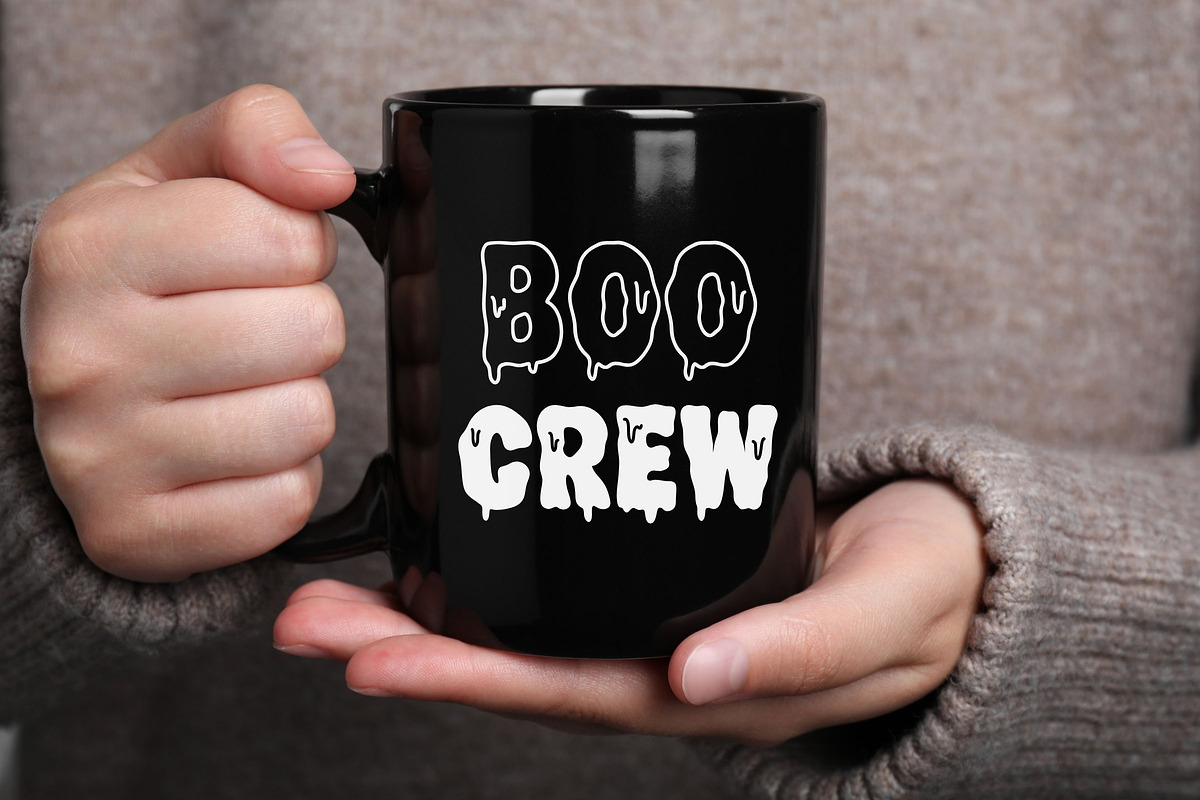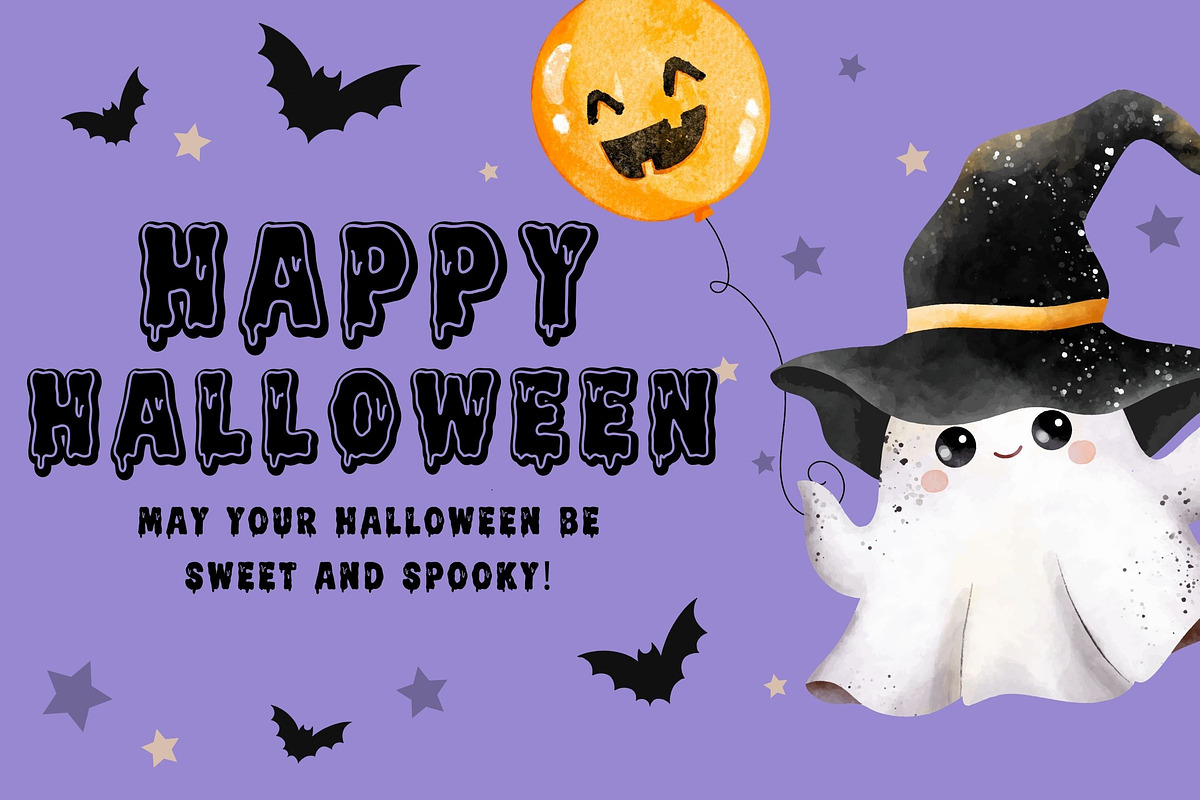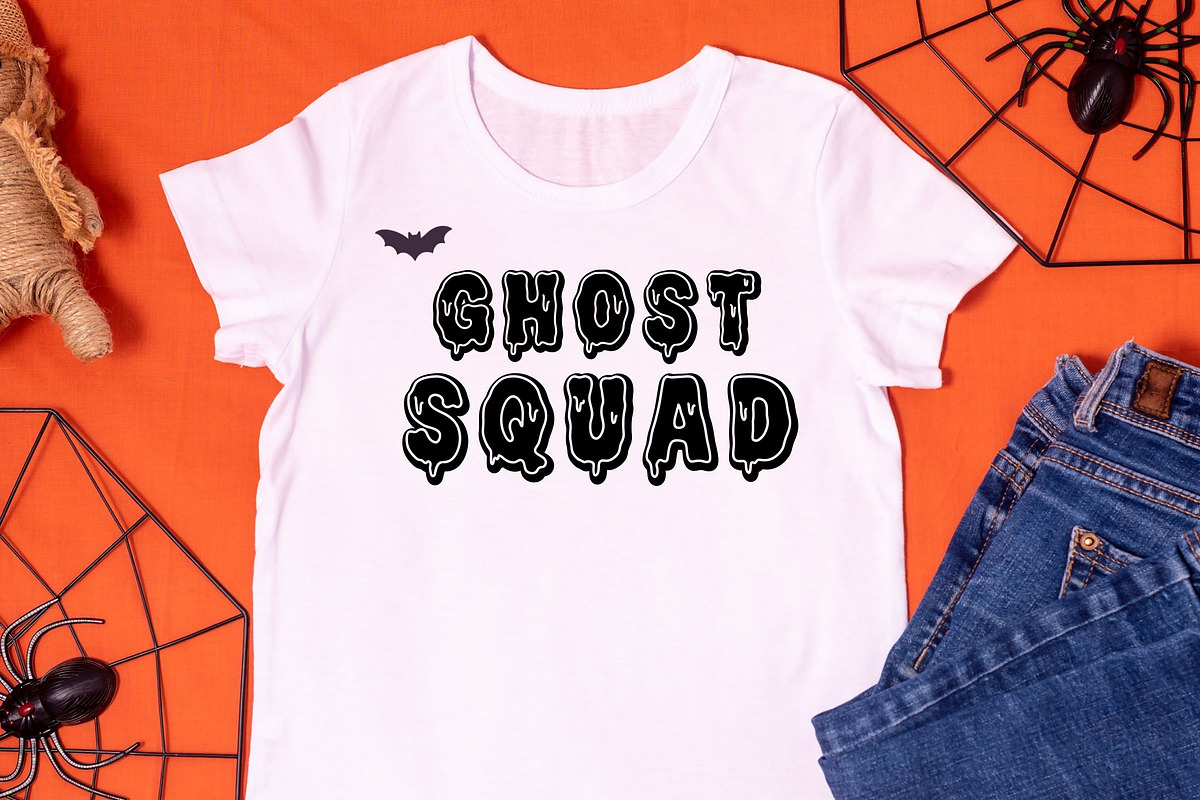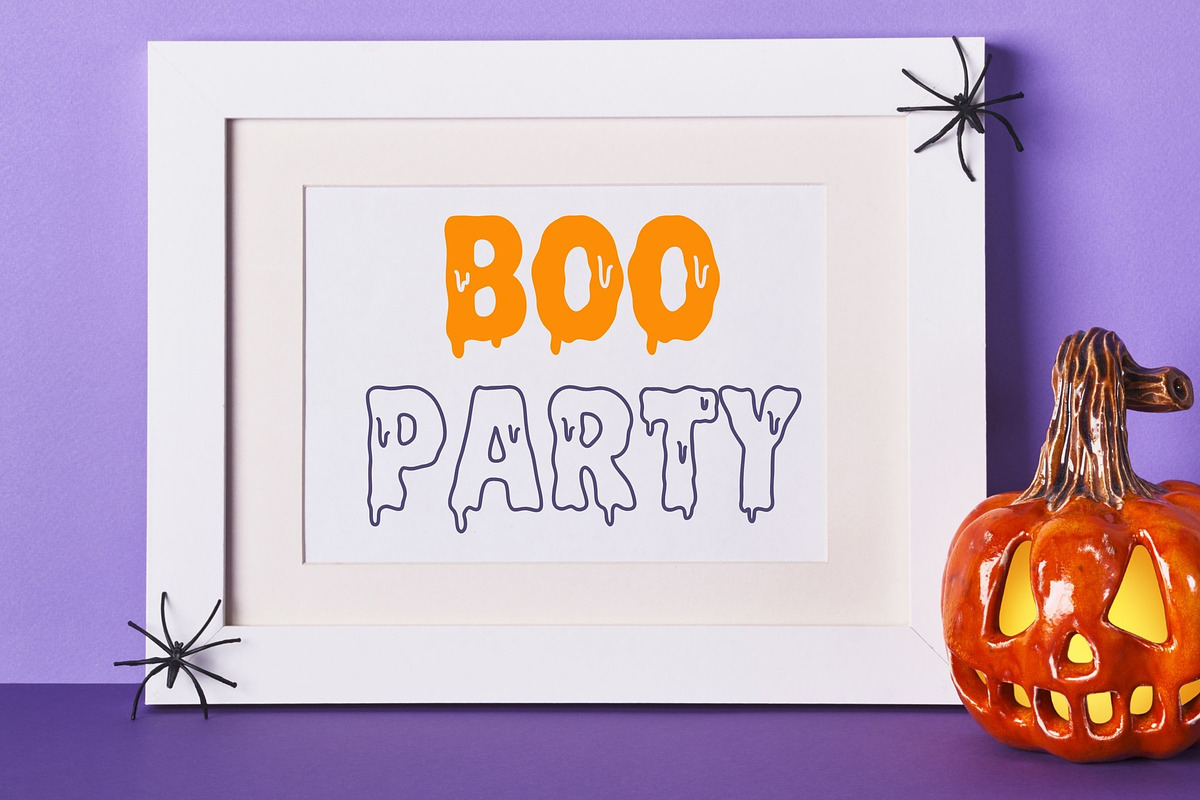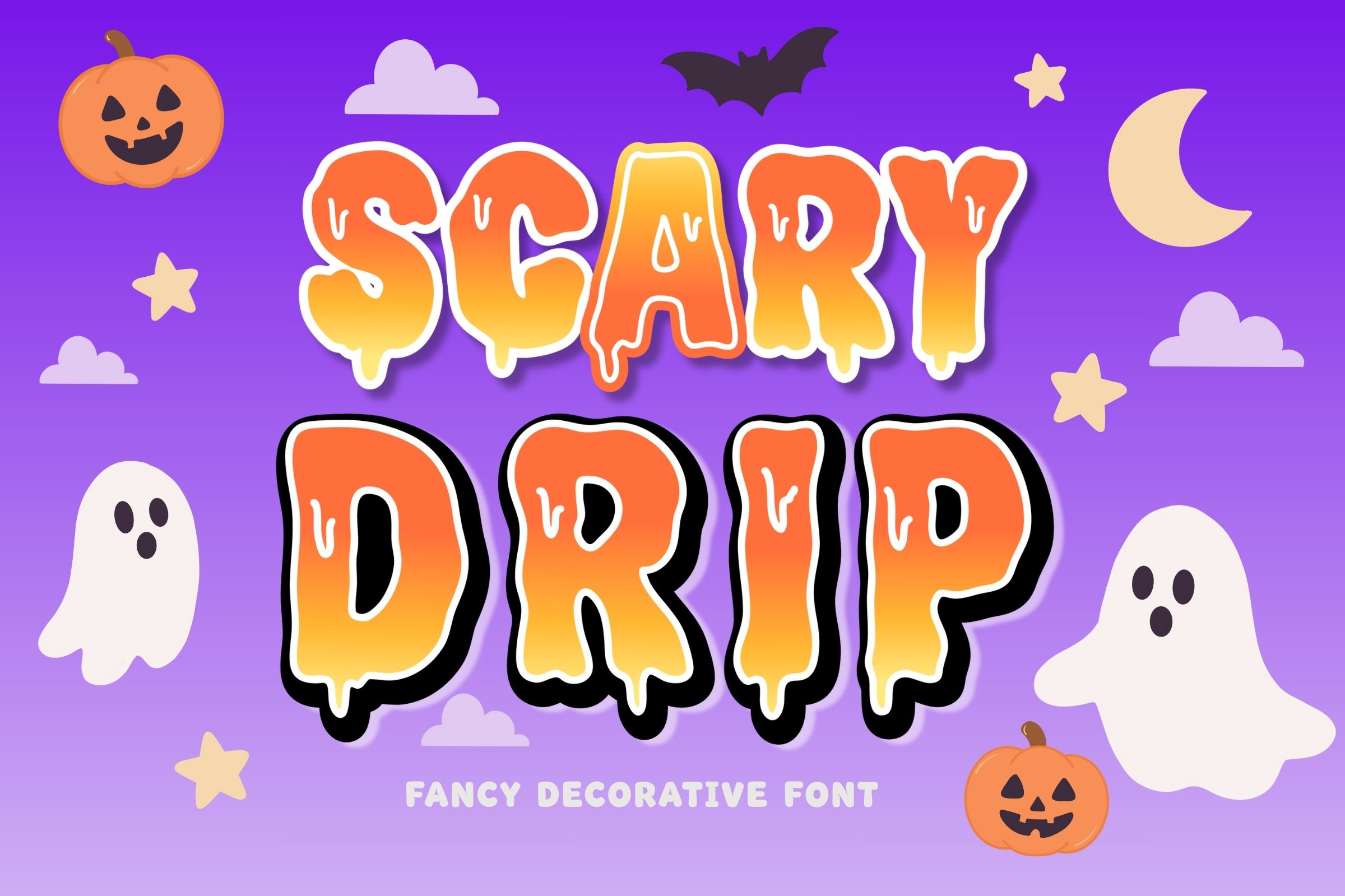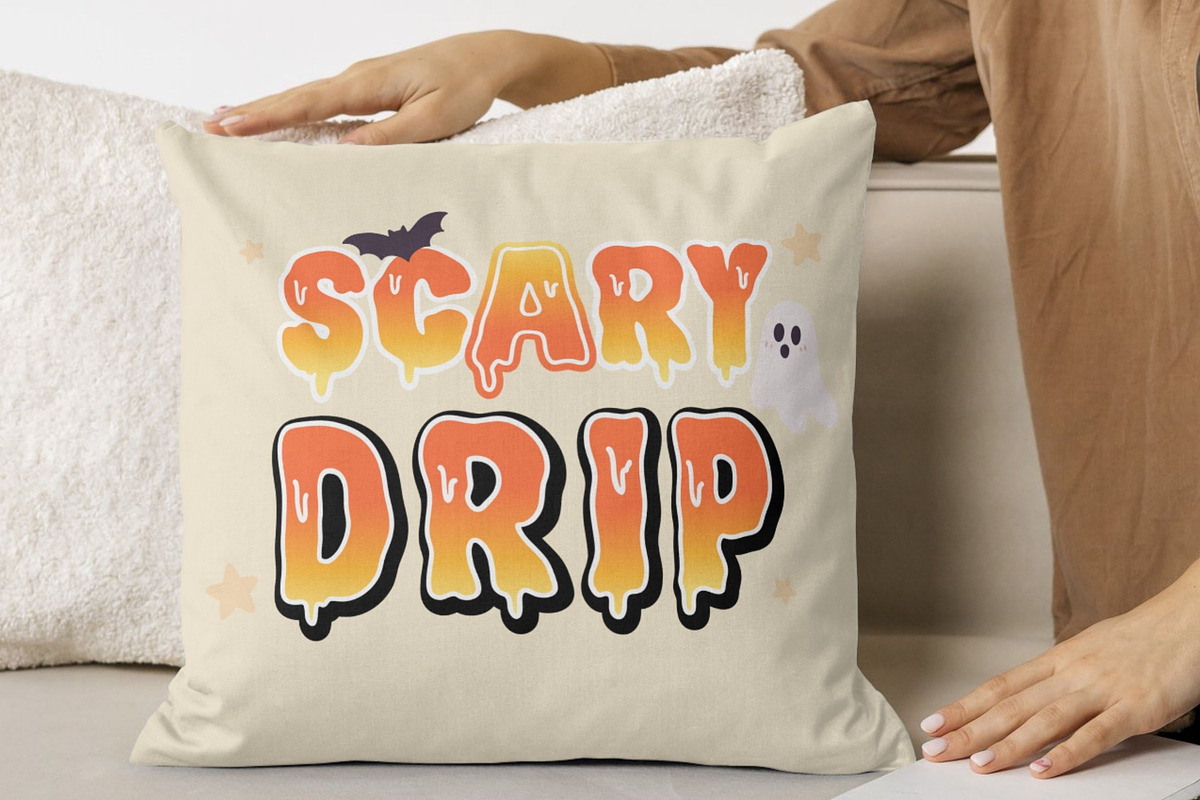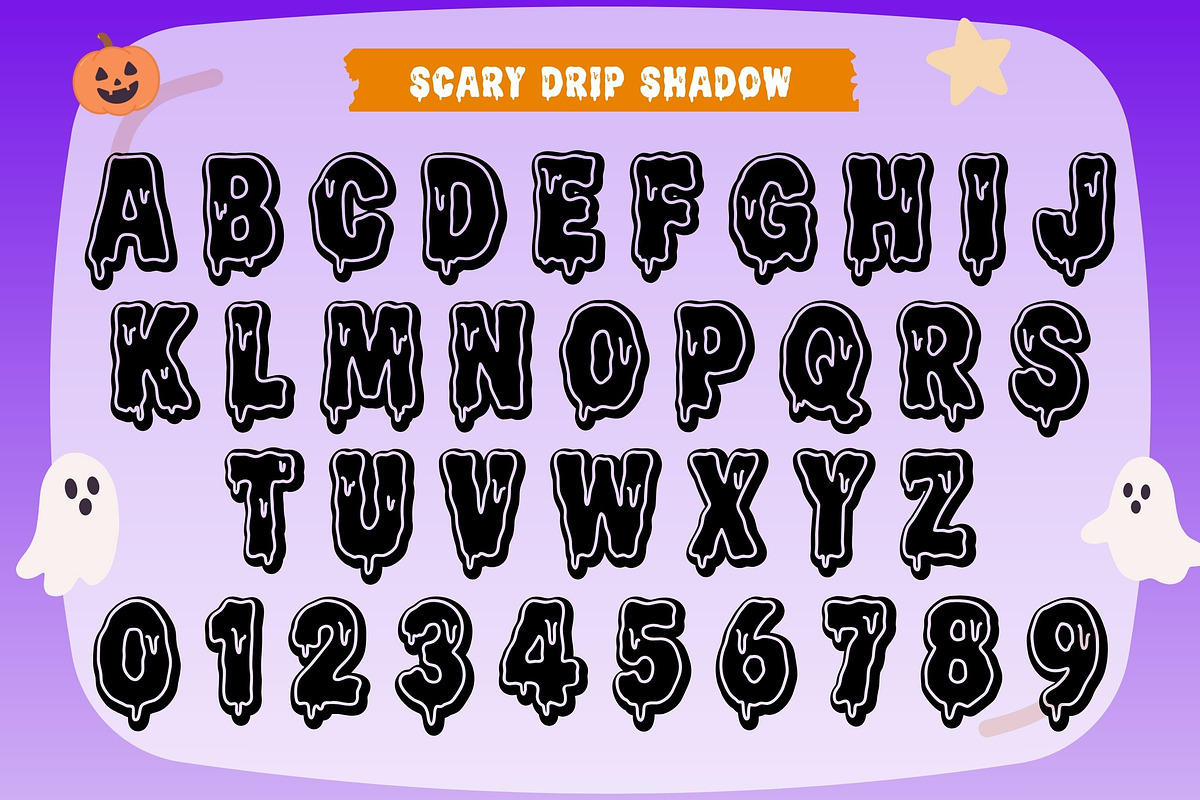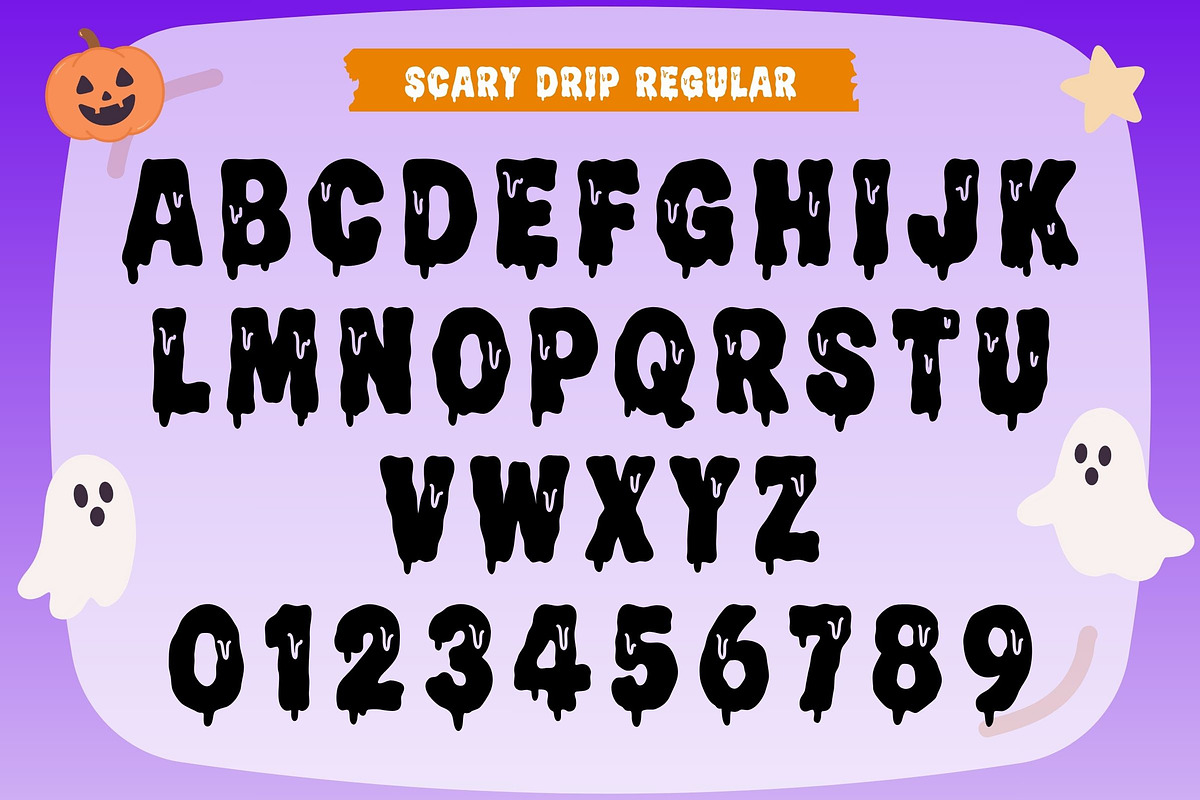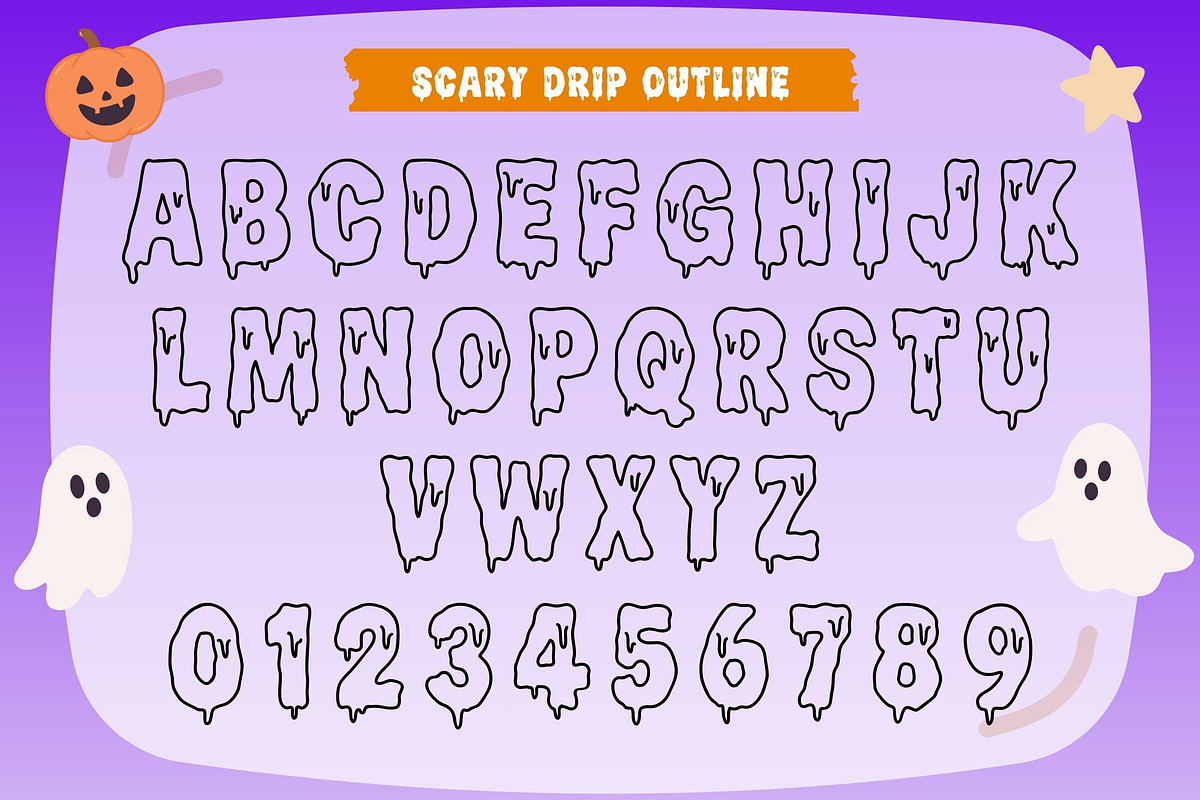
Scary Drip - Halloween Drippy Font
Scary Drip is a drippy display font with three stackable styles—Regular, Outline & Shadow—for bold, layered results. Perfect font for party invitations, shirts, mugs, stickers, banners and more.